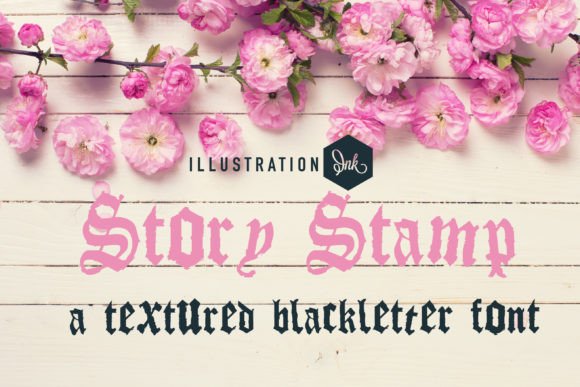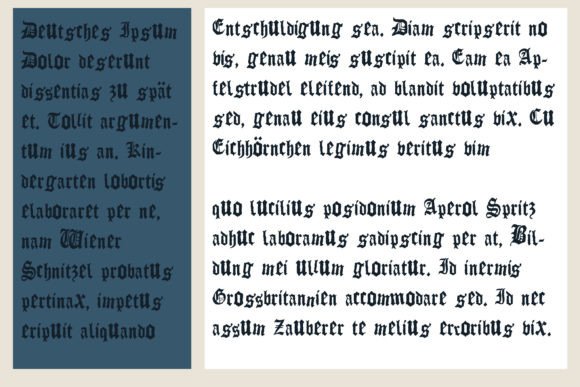
Story Stamp is a hand-crafted blackletter font that combines a unique, creative look with an old-school style. It’s perfect for adding a vintage, artistic touch to your projects.
Story Stamp Font